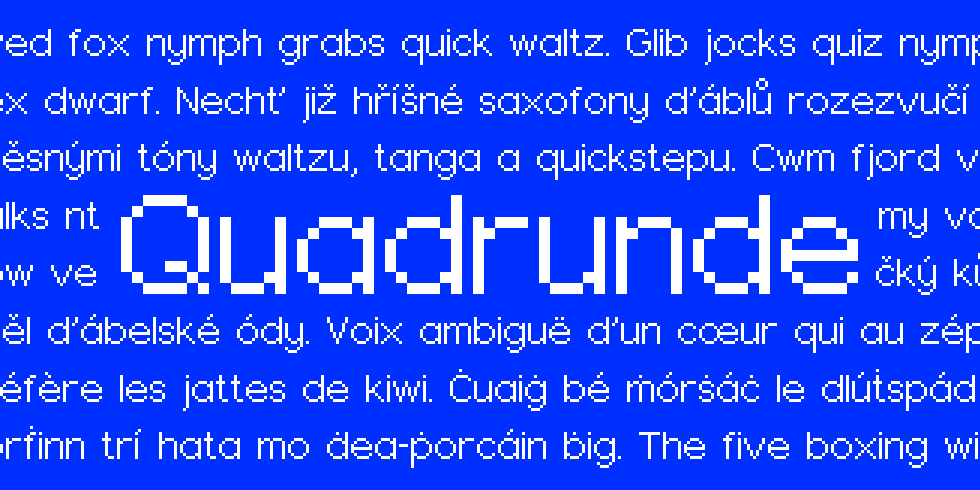
As mentioned in my previous release post, my work on Digital Disco was split off into two fonts: the aforementioned groovy, chunky typeface (“Digital Disco”) and another more “standard” geometric sans serif (“Quadrunde”).
It’s finally time to release Quadrunde!
There isn’t a whole lot to say about this font, as its design is fairly self-explanatory. Sometimes designing something “normal” can be a pretty meditative experience! I just wanted to put something together using the same formula most geometric sans serifs use (ie: Futura, Century Gothic, Gotham, Twentieth Century, etc.).
Geometric fonts are always so satisfying to look at in terms of rhythm and overall balance, since everything is so uniform. This is especially true for words that have multiple letters of the same relative “shape.”
Of course this also means that text containing words with multiple letters of the same relative shape can get hard to read! But sometimes that just makes geometric sans more fun.
I’m not expecting this font to be terribly popular, but I’m pleased with how it turned out. I think it would be a great addition to any project that needs something pixelated, but wants to keep things fairly classic instead of straying too far with a particular design.